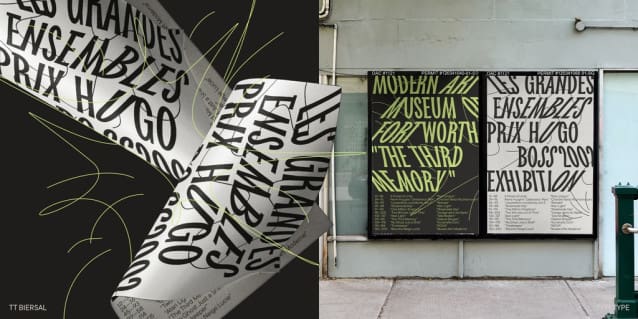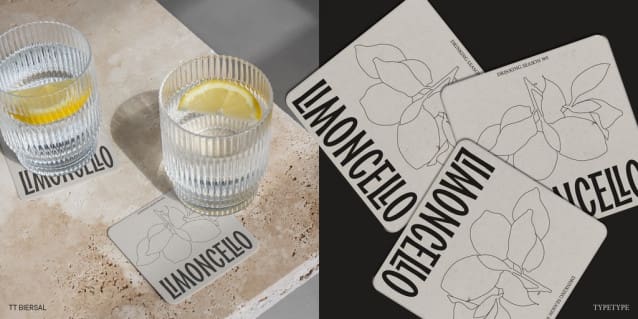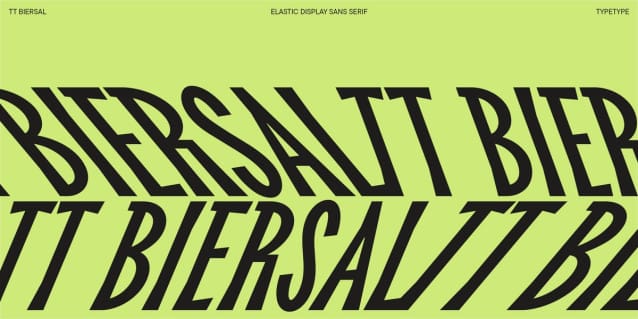
TT Biersal Font Family
TT Biersal Font Family is a display sans serif with a free-spirited, playful, and adventurous nature. The concept of this font was sparked by a German poster from the early 1930s. We aimed to maintain the proportions of the reference along with an unpolished, lively feel of its lettering. As a result, we got a vibrant, dense font with narrow proportions and asymmetrical forms.
The key features of TT Biersal are asymmetrical angled cuts in square and diagonal characters. They infuse the font with a hand-made feel as if someone cut out small pieces of paper, glass, or stone and put together a modular collage. Unconventional parallel cuts in the terminals of round letters make the setting look dynamic. Some letters, such as «E,» «P,» and «B,» feature slight extensions as though the strokes overshot the vertical stems in fast writing. Also, the ovals are tapered to match the sharp angles of square characters.
Due to its angular cuts, asymmetrical diagonals, and dense setting, the font’s design may remind you of intertwining branches against a clear blue sky. Italic font styles make TT Biersal look even more dynamic and swift as we added an extreme slant, from -40° to +40°, to retalics and italics. When combined, text blocks with different angles may create the feeling of movement or shadow. In addition, the typeface features a party-themed icon set.
TT Biersal is a perfect match for music festivals, exhibitions, or movie posters. The font’s energetic character will infuse any design with a daring touch. Apart from that, the font’s handwritten origin makes it well-suited for crafting the visual identity of brands focused on handmade products.